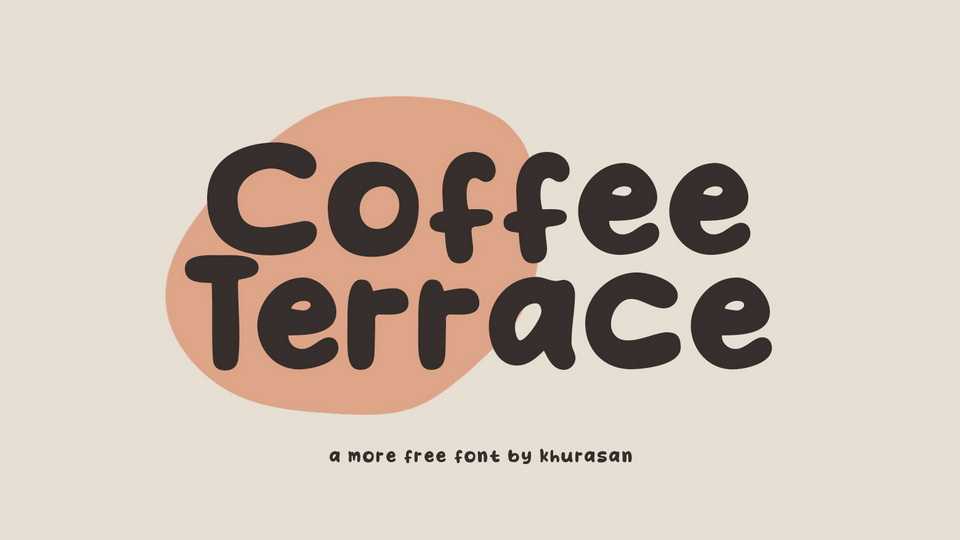
Download Coffee Terrace font, a hand lettered comic typeface designed with a cute and playful look. Add a funny and quirky touch to your designs with Coffee Terrace font.